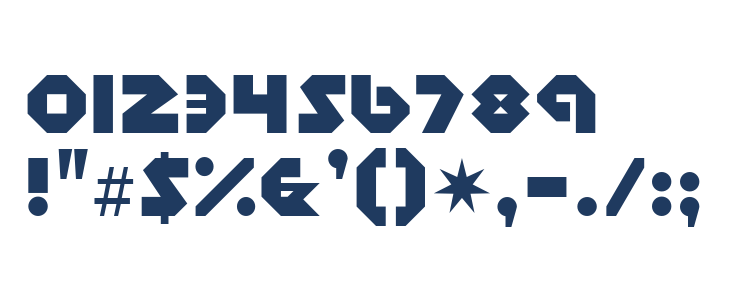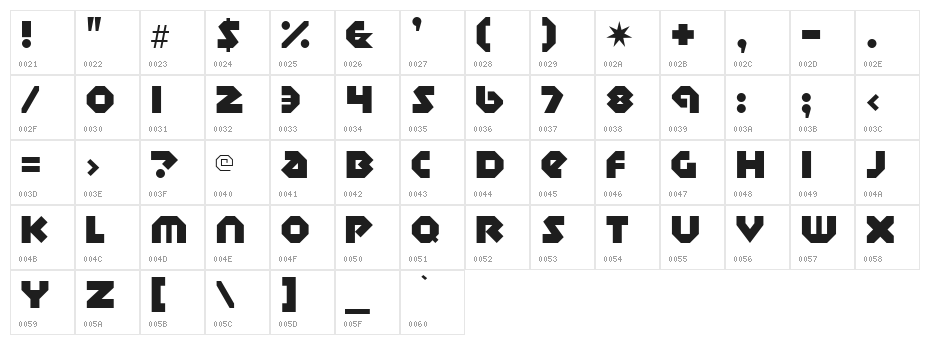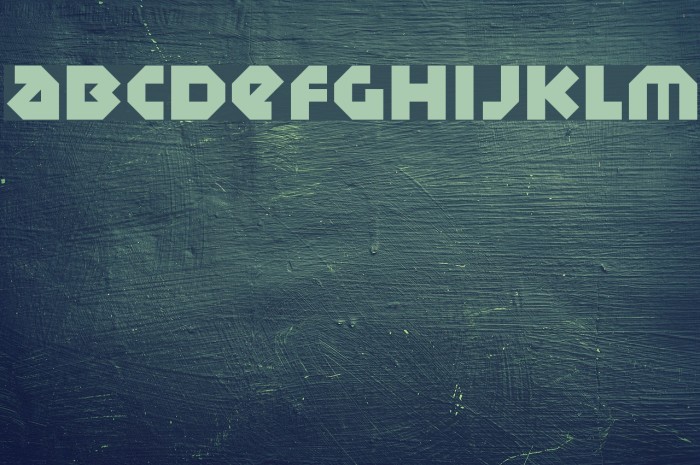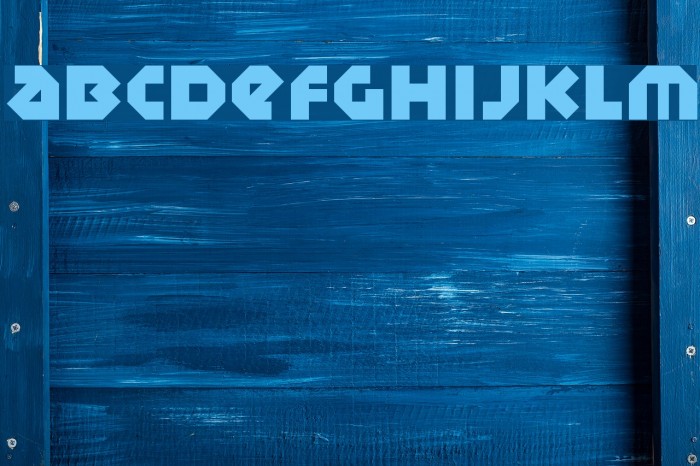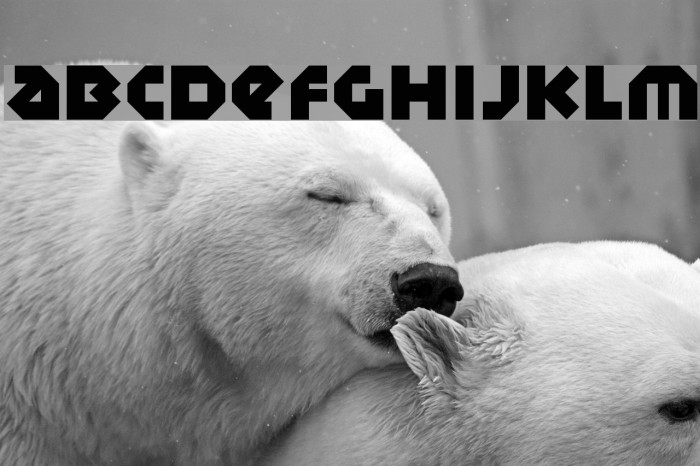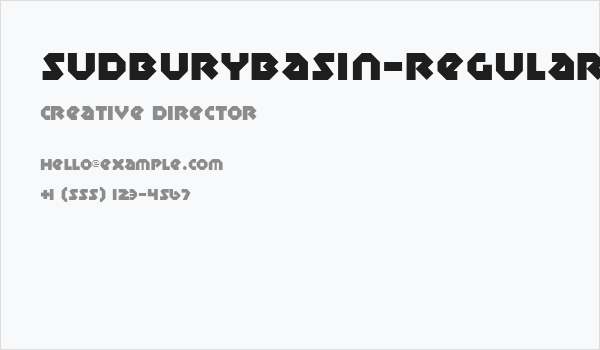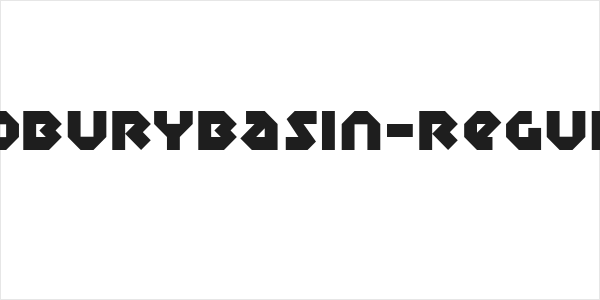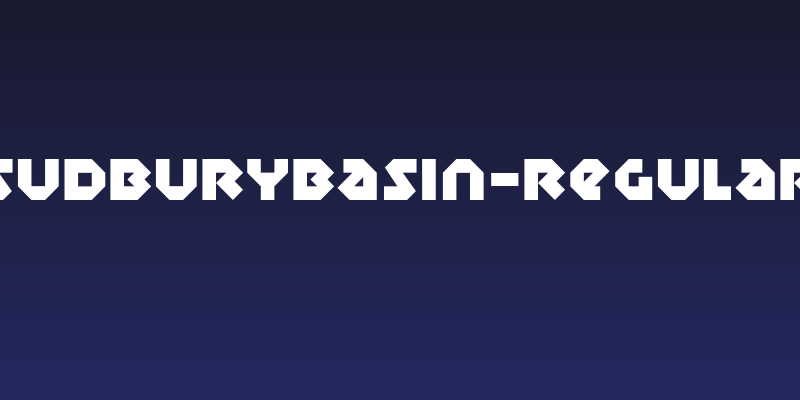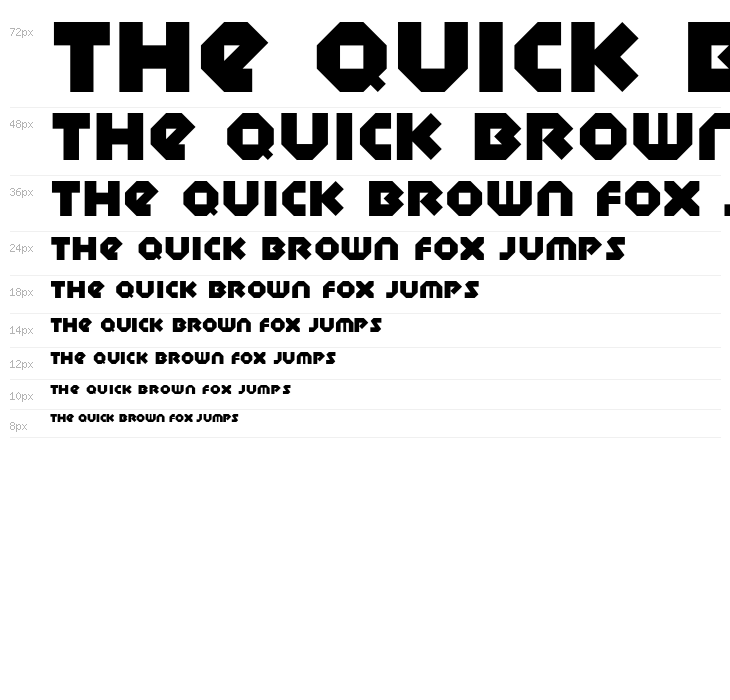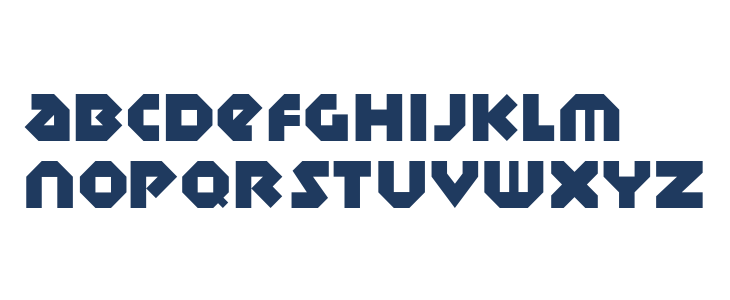
SudburyBasin-Regular Font
SudburyBasin-Regular Description
This font features a bold, geometric design with strong angular lines and a distinct industrial feel. The characters are constructed with sharp edges and a uniform thickness, giving it a robust and modern appearance. The uppercase and lowercase letters maintain a consistent style, with a blocky structure that enhances readability while adding a unique flair. The numerals and special characters follow the same design principles, ensuring a cohesive look across all elements. This font is well-suited for projects that require a striking and contemporary aesthetic, such as branding, posters, and digital media.